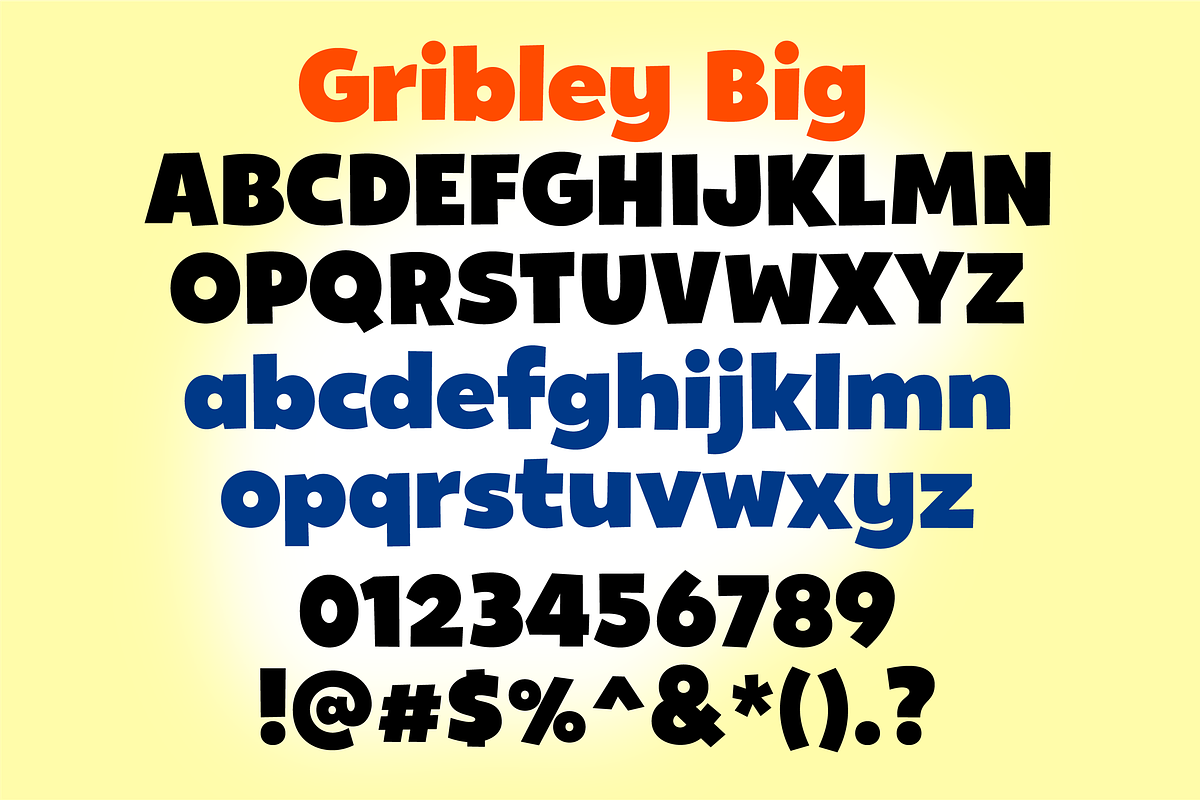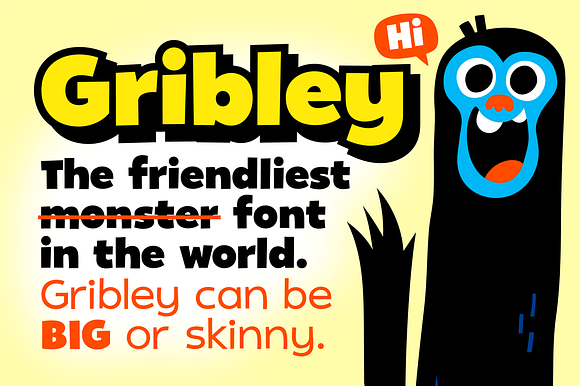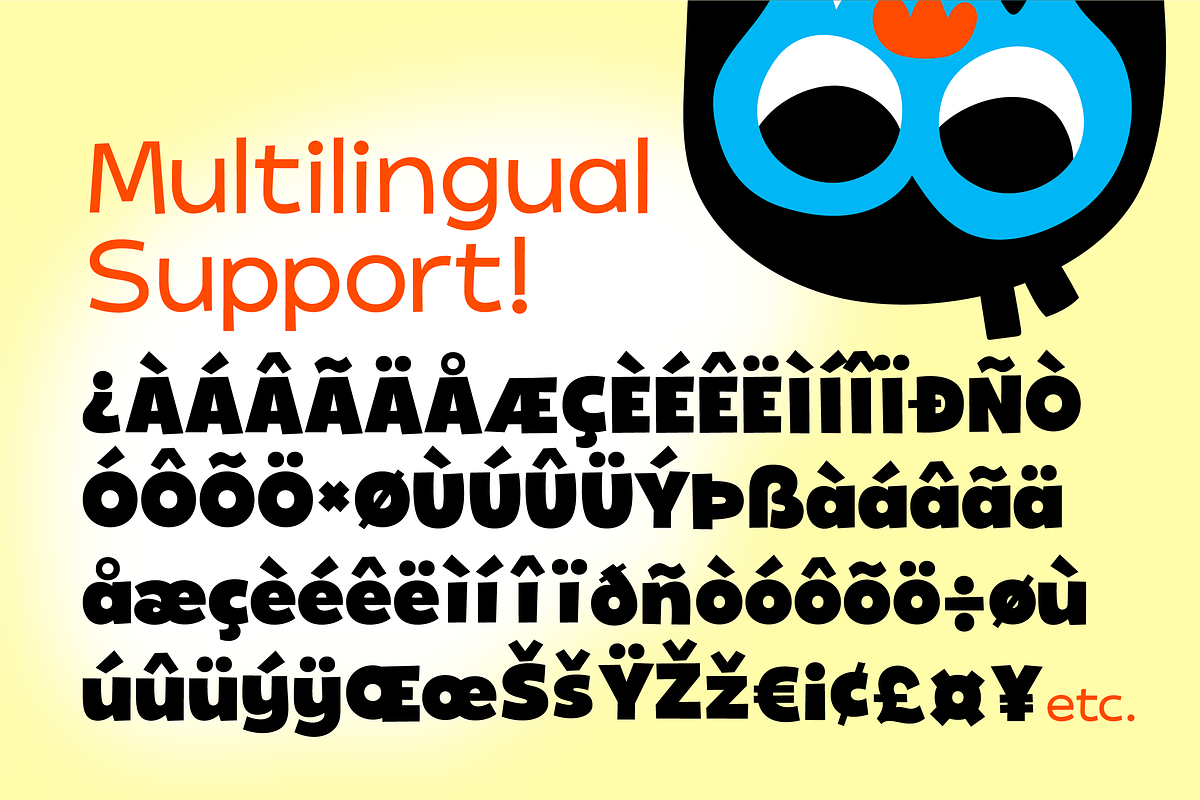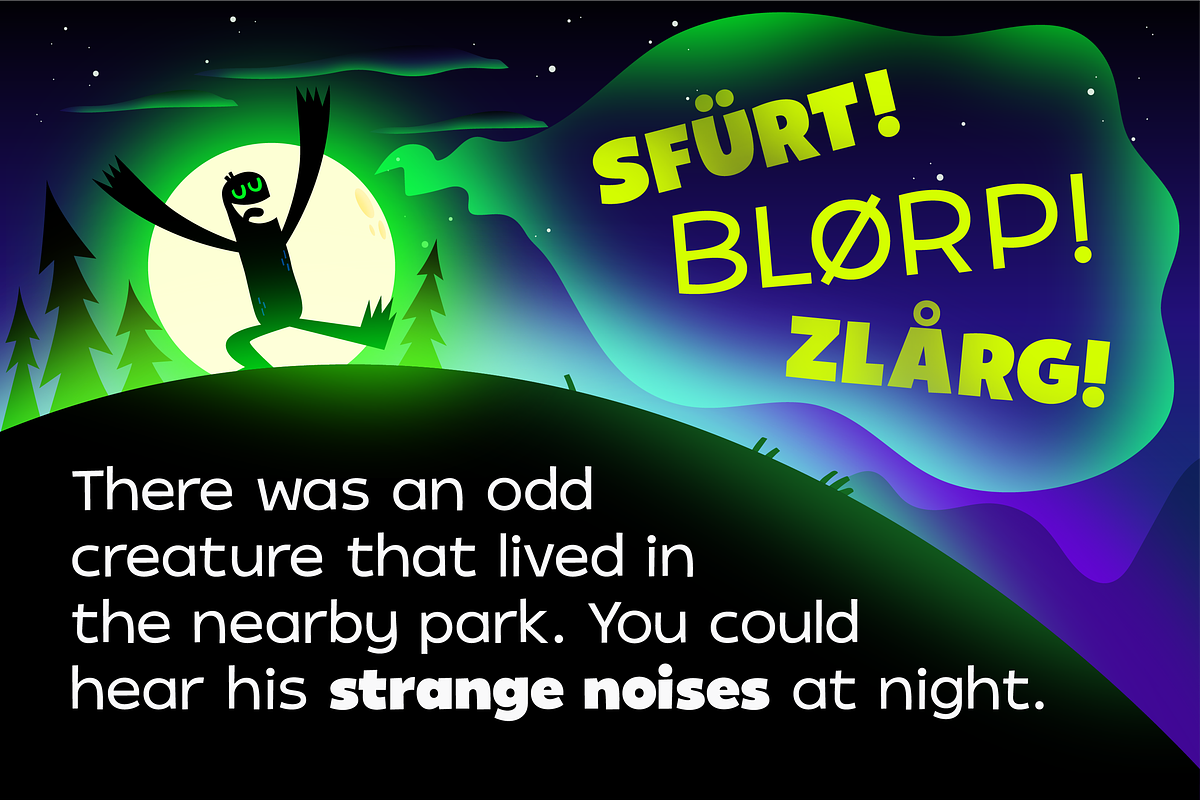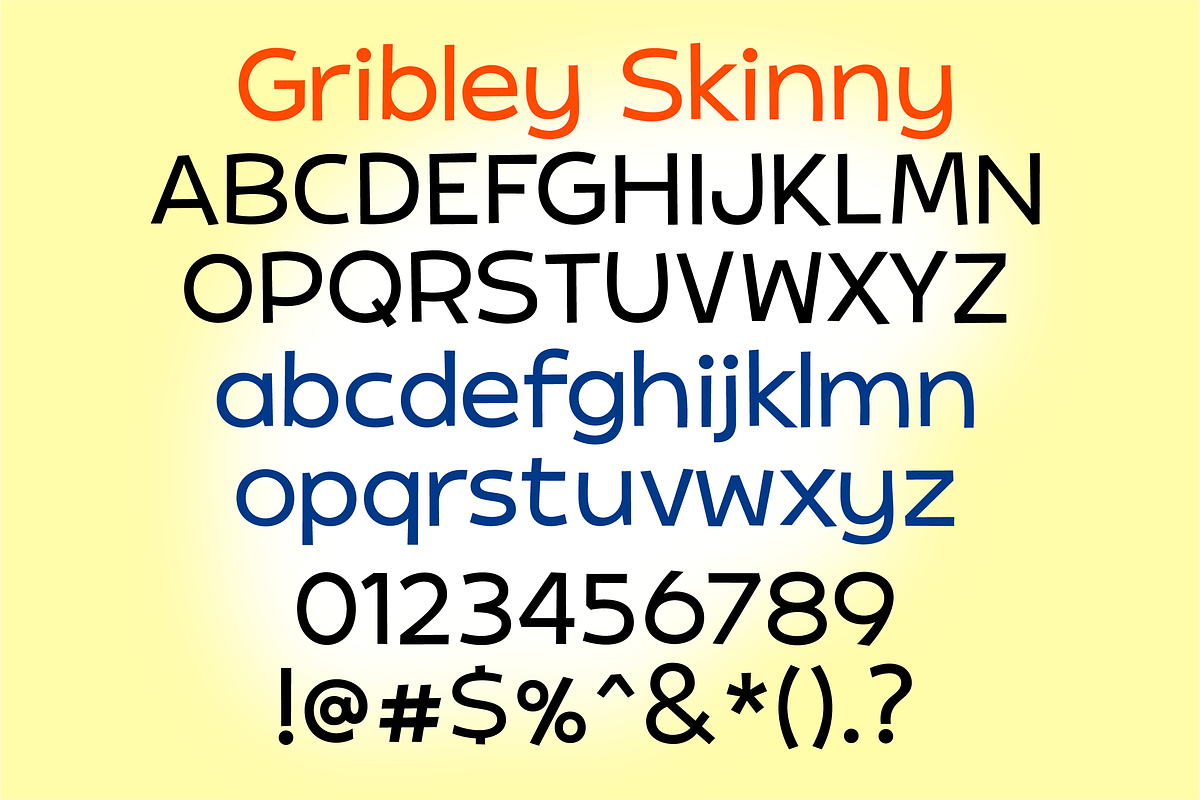
Gribley is a friendly, fun font that comes in BIG and Skinny weights! With a bouncy baseline, this font is full of personality. It is also definitely not a monster. It is a font.
- Gribley Big
- Gribley Skinny